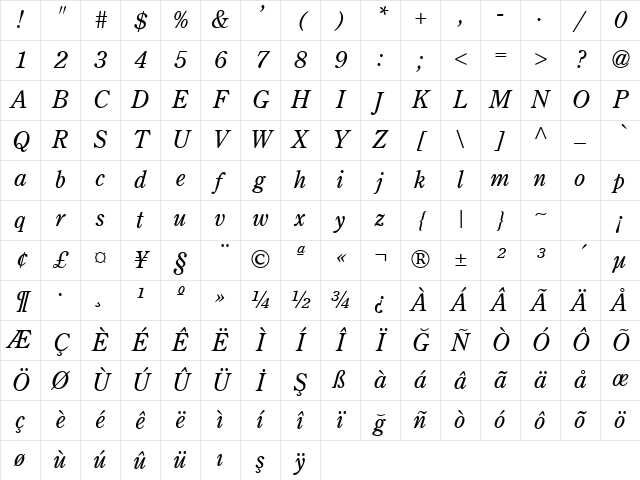
TR Centurion Old Italic Free Font
TR Centurion Old Italic
Complete TR Centurion Old Italic glyph index. Displaying only characters natively supported by TR Centurion Old Italic font.
Design Context for TR Centurion Old
TR Centurion Old is a composed and adaptable typeface that performs quietly and consistently across a wide range of design contexts. The slanted form adds forward momentum and visual energy.
Pro Tip: Use TR Centurion Old for emphasis, pull quotes, and subheadings where its slanted energy can add rhythm to the layout.